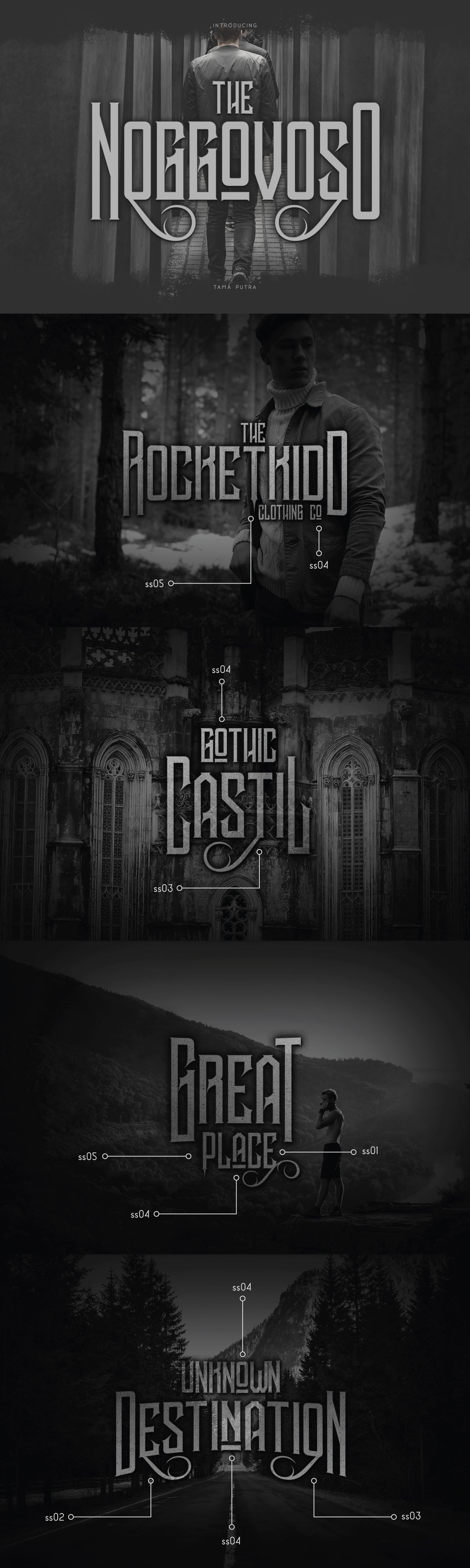
Noggovoso Decorative Font
Noggovoso Typeface
Noggovoso is a typeface inspired from gothic and victorian style.
It includes a full set of uppercase and lowercase letters as well as multi-lingual and currency support, numerals, punctuations, alternates, ligatures and some extra glyphs.
- Character Set A-Z (Uppercase & Lowercase)
- ss01, ss02, ss03, ss04, ss05, ss06, ss07
Noggovoso typeface is suitable font for creating beautiful things and many creative work.